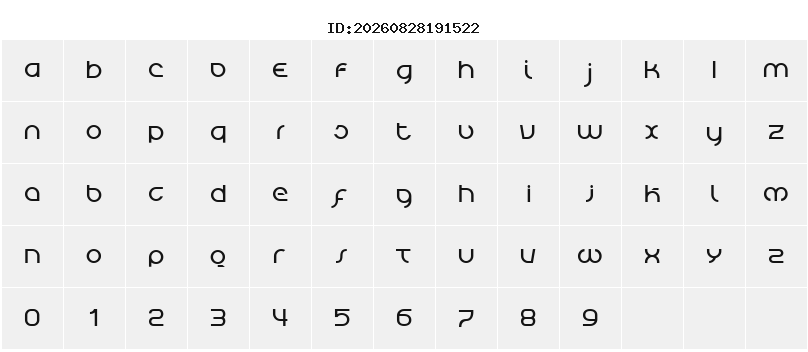
Tierra Blanca Preview
• Font Name: Tierra Blanca
• Full Font Name: Tierra Blanca
• Manufacturer: Alejandro Paul
About Tierra Blanca.ttf
Tierra Blanca.ttf is a modern, elegant sans-serif font designed for ultimate readability and visual harmony. Perfect for branding, headlines, web design, and print materials.